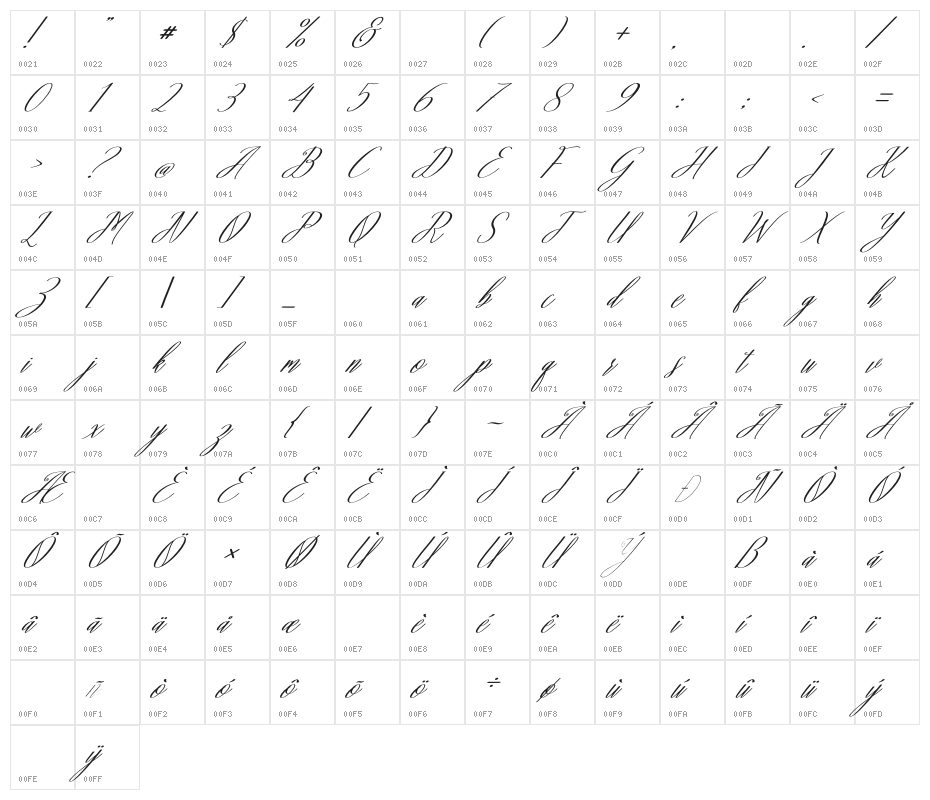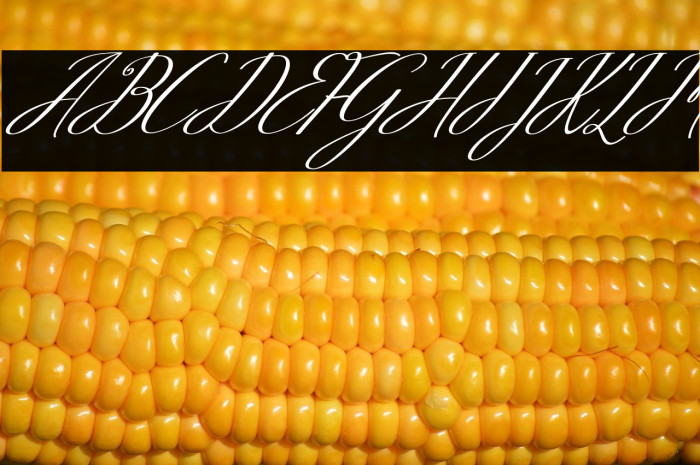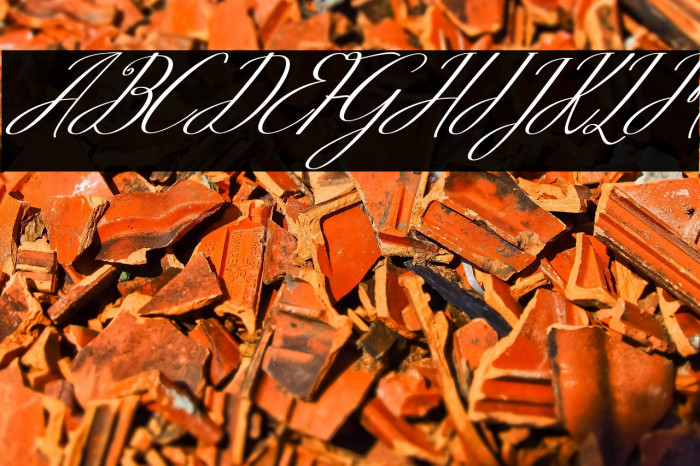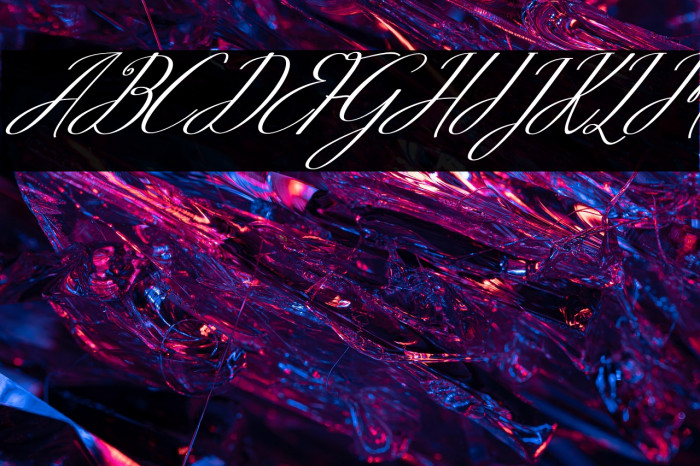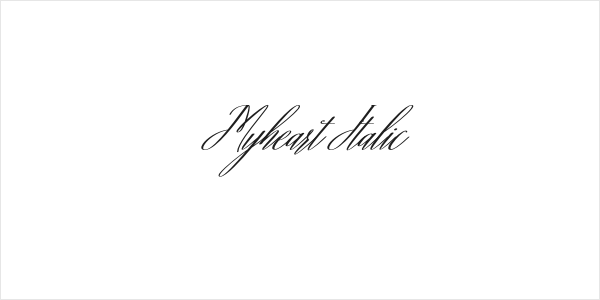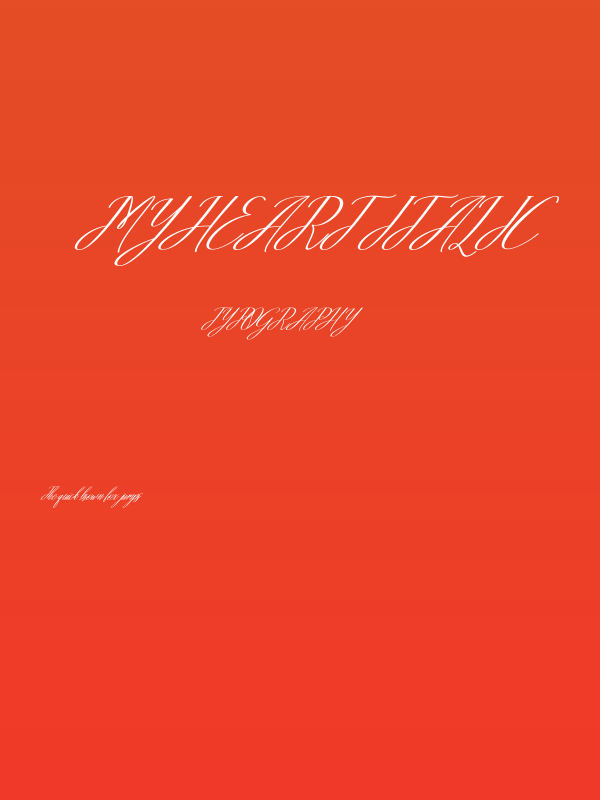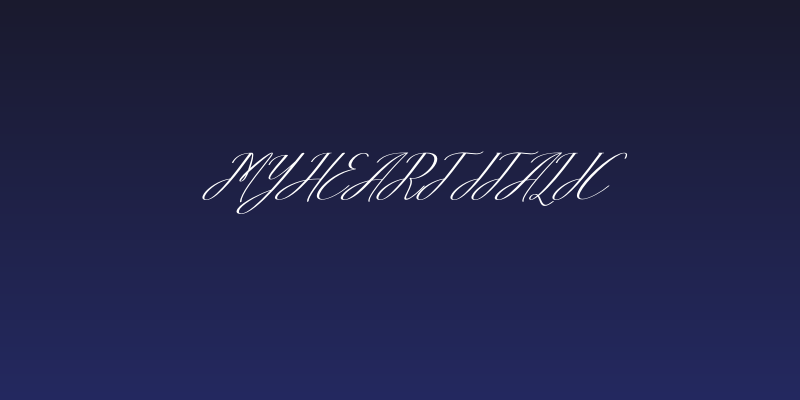
Myheart Italic Font
Myheart Italic Description
This font features an elegant and flowing script style, characterized by its cursive, italicized letters. The strokes are smooth and connected, giving it a handwritten appearance. The uppercase letters are tall and graceful, while the lowercase letters maintain a consistent slant, enhancing the fluidity of the text. The numerals and special characters are designed to match the overall aesthetic, with a delicate and artistic flair. This font exudes sophistication and is perfect for projects that require a touch of elegance and personal expression.
| Proposed Projects | Ideal for wedding invitations, greeting cards, personal branding, and elegant logos. |